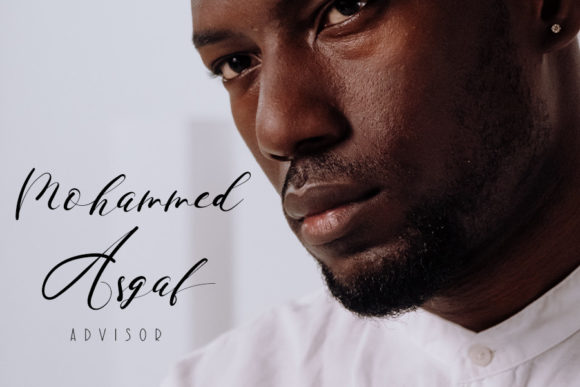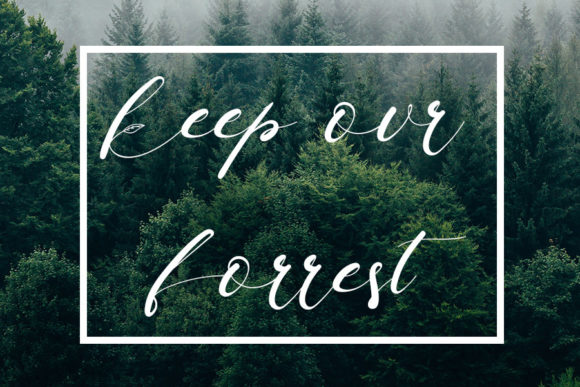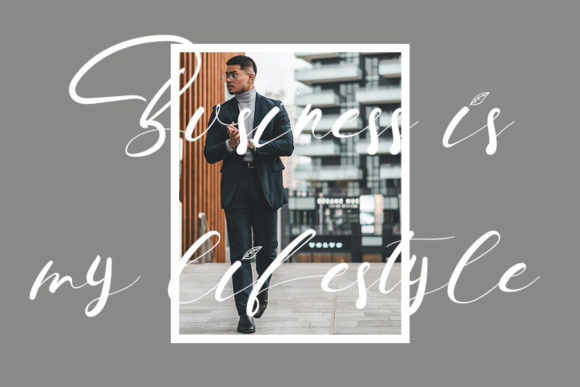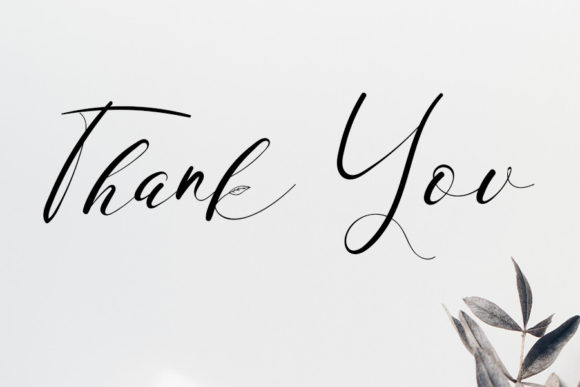
The Magical World of Botanikal Font
I’ll never forget the design project that led me to discover the enchanting Botanikal font. I was working on a whimsical branding project for a new botanical garden, and I was struggling to find the perfect font that captured the essence of nature and elegance. That’s when I stumbled upon Botanikal, a delicate and thin lettered handwritten font that instantly transported my designs to a magical world.
An Honest Review of Botanikal Font
- 💫 Unique and modern style that adds a touch of sophistication to any design
- ✅ Delicate and thin lettering perfect for creating elegant and refined designs
- 🌿 Nature-inspired aesthetic that’s ideal for botanical, floral, or outdoor-themed projects
- 🎨 Highly versatile and can be used for a wide range of design applications, from logos to social media graphics
- ⚠️ Some letters may appear a bit too delicate for very large or bold designs
- ⚠️ Limited availability of stylistic alternates, which may limit design variations
The Story Behind Botanikal Font
Botanikal font was designed by a talented type designer who was inspired by the beauty of nature and the world of botany. With a passion for creating unique and elegant fonts, the designer spent countless hours perfecting the details of Botanikal, from the delicate letterforms to the intricate swashes and glyphs. The result is a font that’s both modern and timeless, perfect for designers who want to add a touch of magic to their creations.
| Font Name | Botanikal Font |
| What is the best use for Botanikal font? | Botanikal font is ideal for designs that require a touch of elegance and sophistication, such as branding, packaging, and social media graphics. |
| Is Botanikal font suitable for body text? | While Botanikal font is beautiful, it’s best suited for headlines and titles rather than body text. Its delicate lettering may be difficult to read in large blocks of text. |